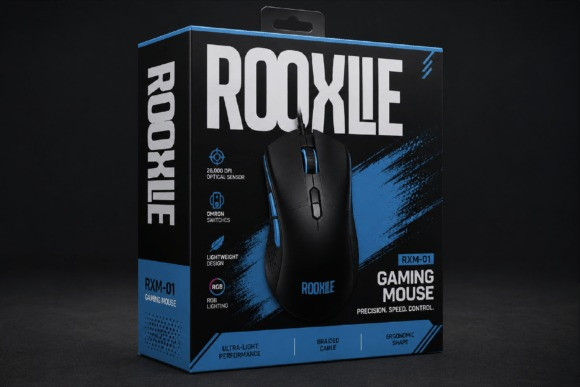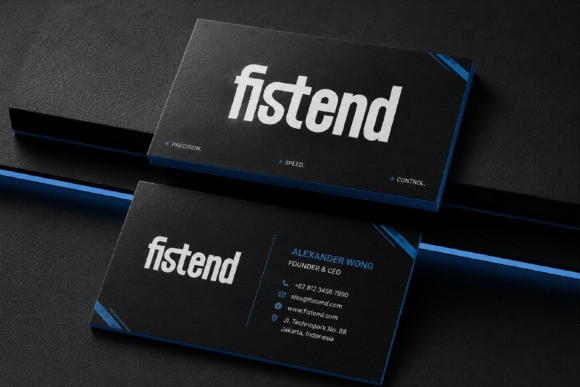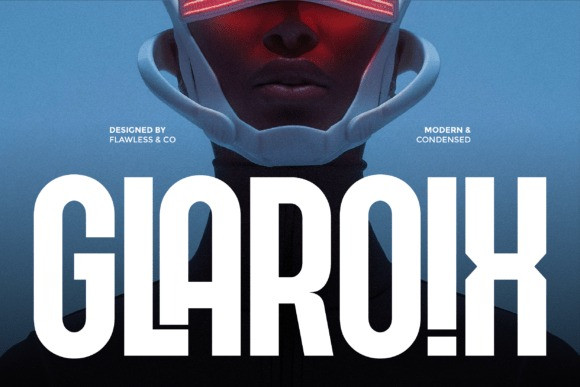
Glaroix Font
Glaroix Font is a modern condensed sans font designed to deliver strong visual impact, clean aesthetics, and contemporary versatility. Featuring tall proportions, refined letterforms, and a sleek condensed structure, Glaroix creates a bold and confident appearance while maximizing space efficiency. Its modern design language allows it to stand out in headlines and branding applications while maintaining excellent readability and professional appeal.